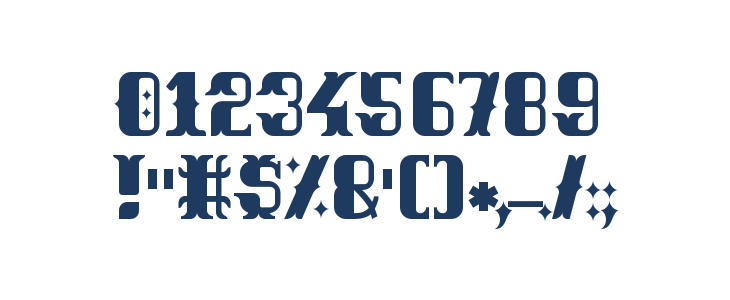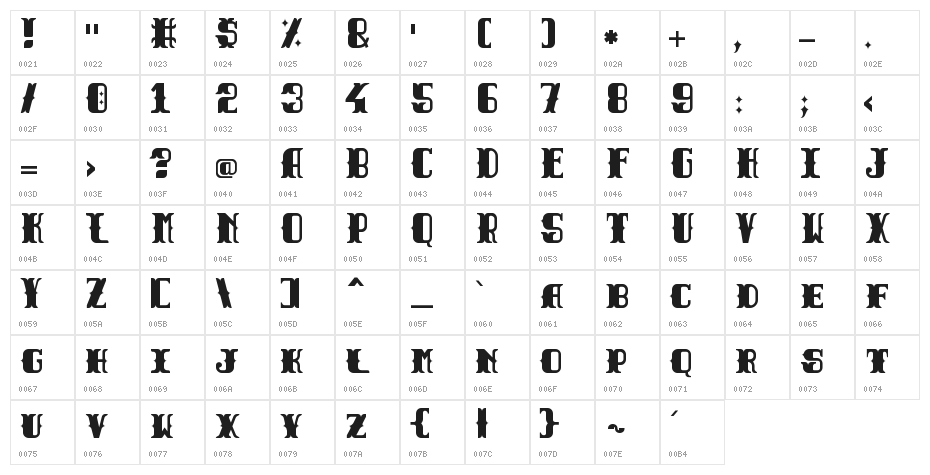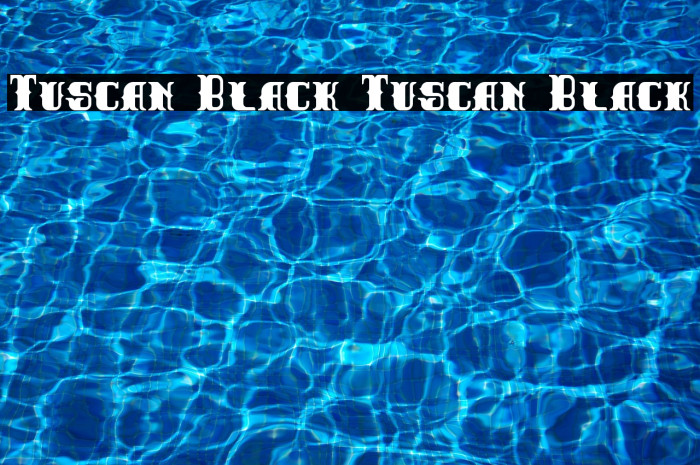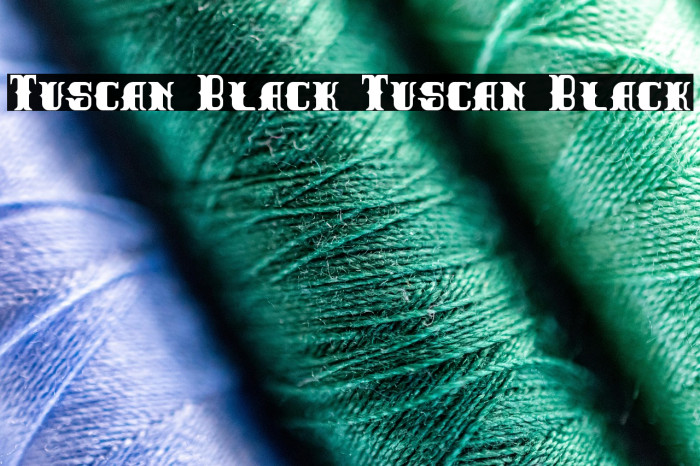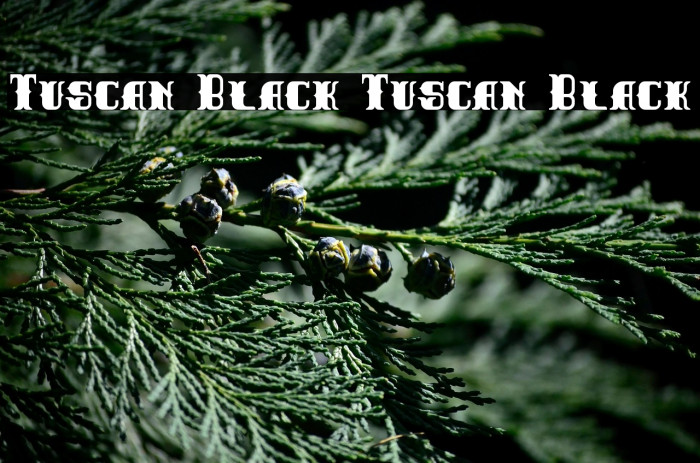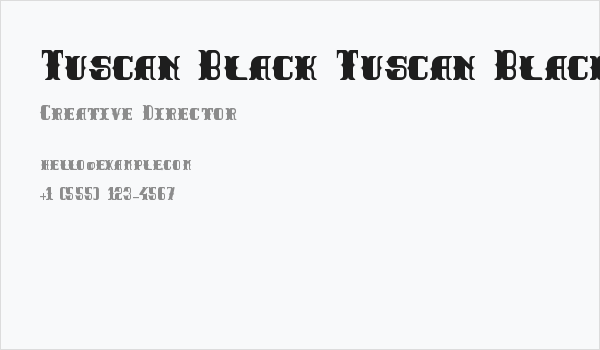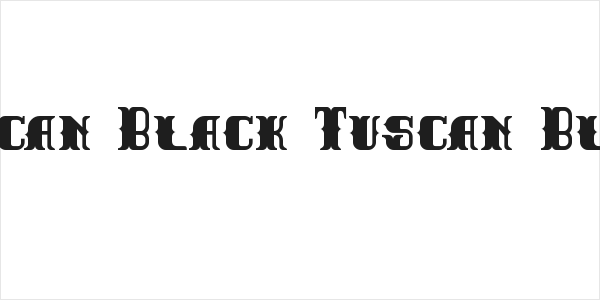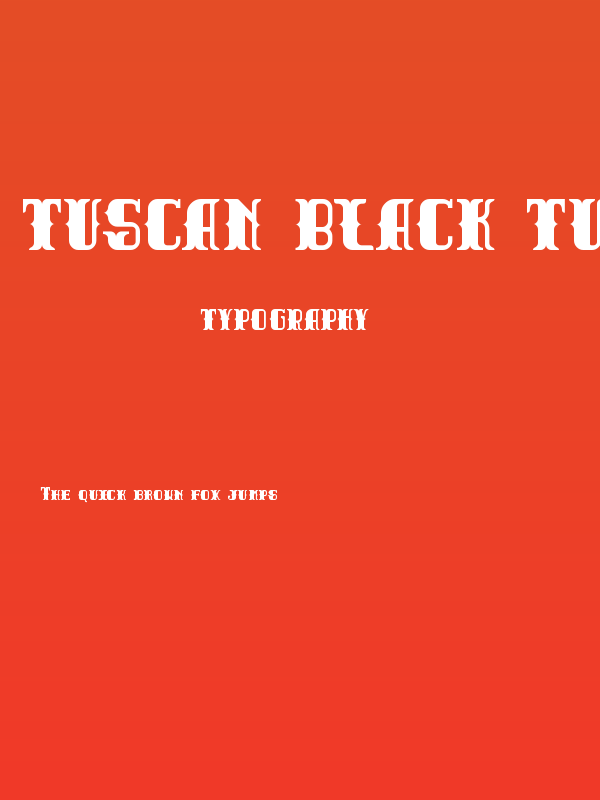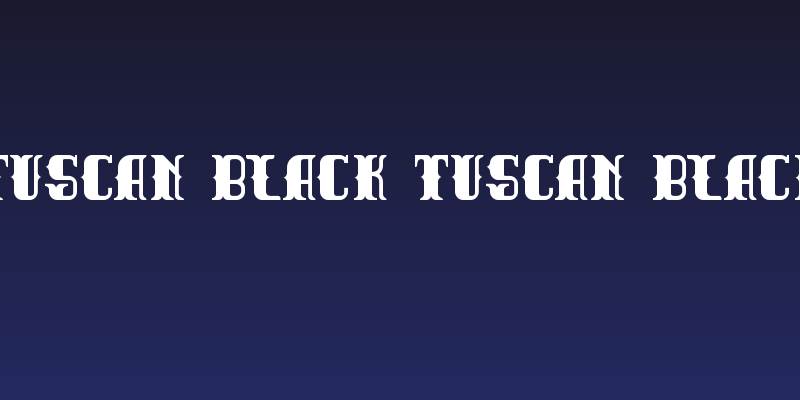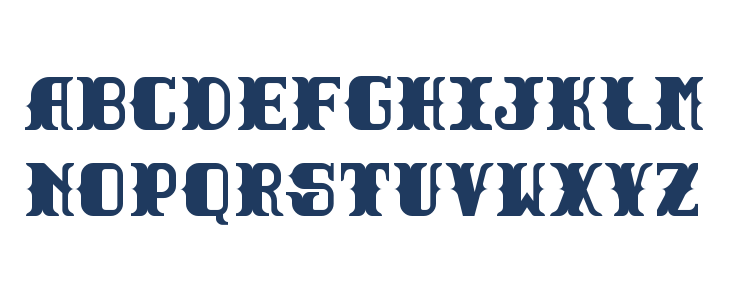
Tuscan Black Font
Tuscan Black Description
This font features a bold and decorative style with strong, thick strokes and intricate detailing. The characters have a distinct, ornate appearance, reminiscent of vintage Western or circus themes. The uppercase letters are particularly striking, with unique embellishments that give each character a sense of individuality. The numbers and special characters maintain this decorative flair, ensuring consistency across the font. The overall design is eye-catching and commands attention, making it suitable for projects that require a bold statement.
| Proposed Projects | Ideal for posters, signage, branding, and any project needing a bold, vintage aesthetic. |